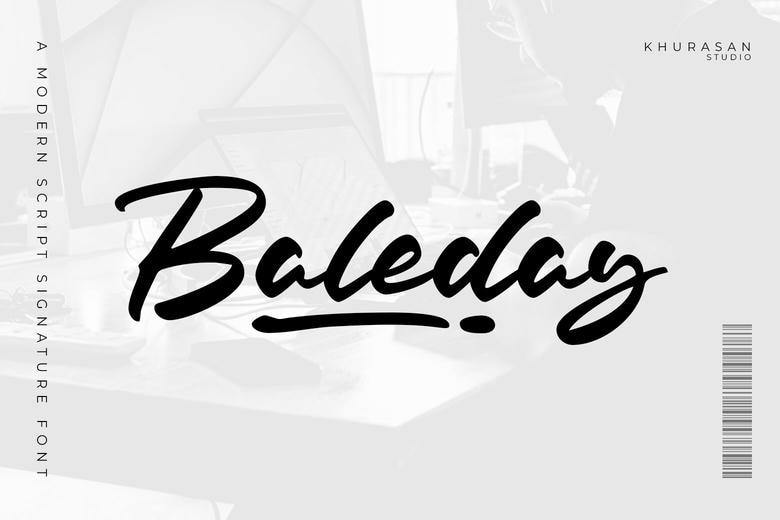
Baleday is a script handwriting font with a natural brush effect, designed to show the beauty of real hand-lettering. Each stroke looks lively, smooth, and expressive, giving your work a unique personality. This font adds a genuine handwritten feel that makes your designs warm, stylish, and high-quality.
Baleday works well for logos, branding, product packaging, quotes, social media posts, wedding designs, and other creative projects. It gives your work a personal and artistic touch that stands out.
Baleday Handwritten Script Font